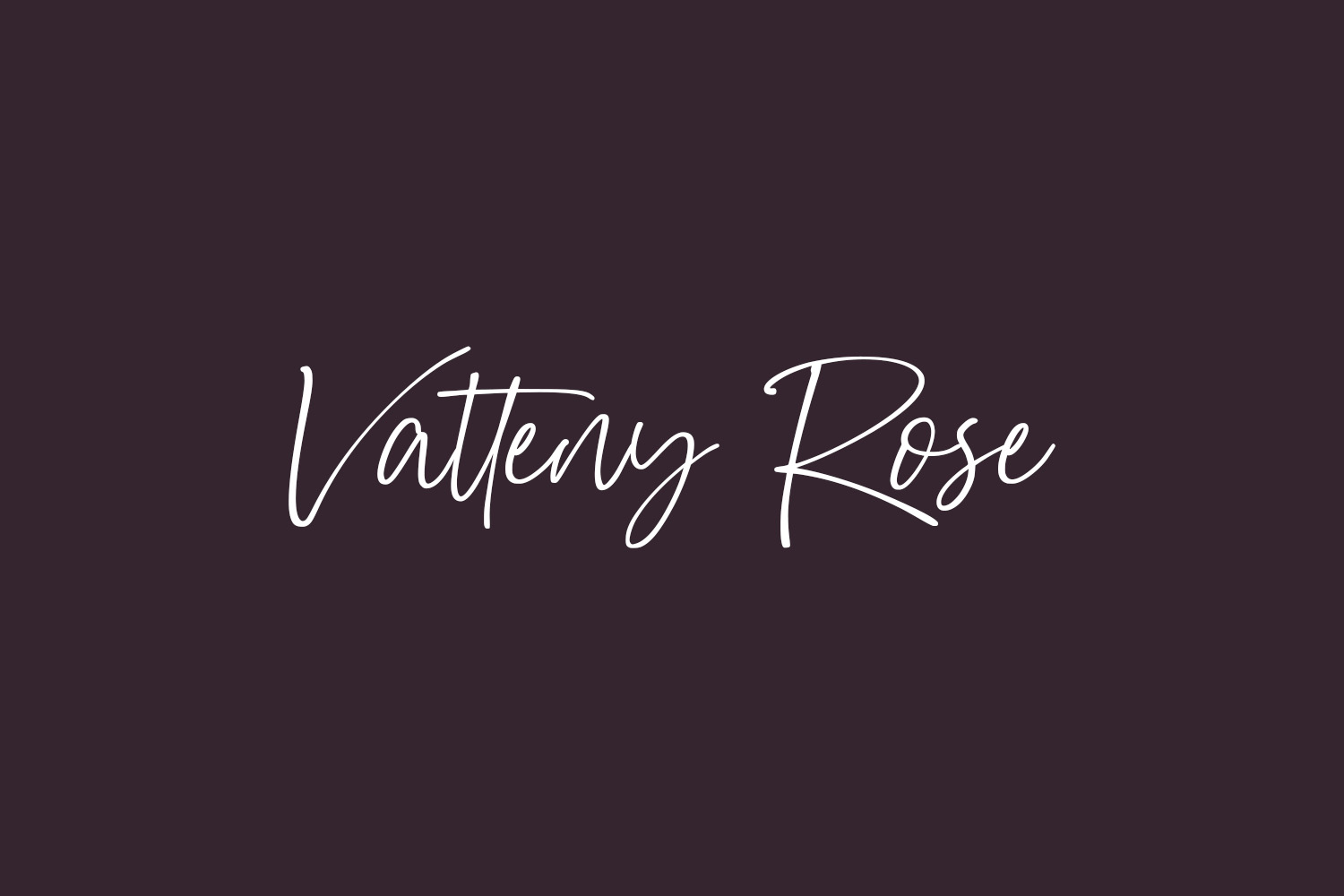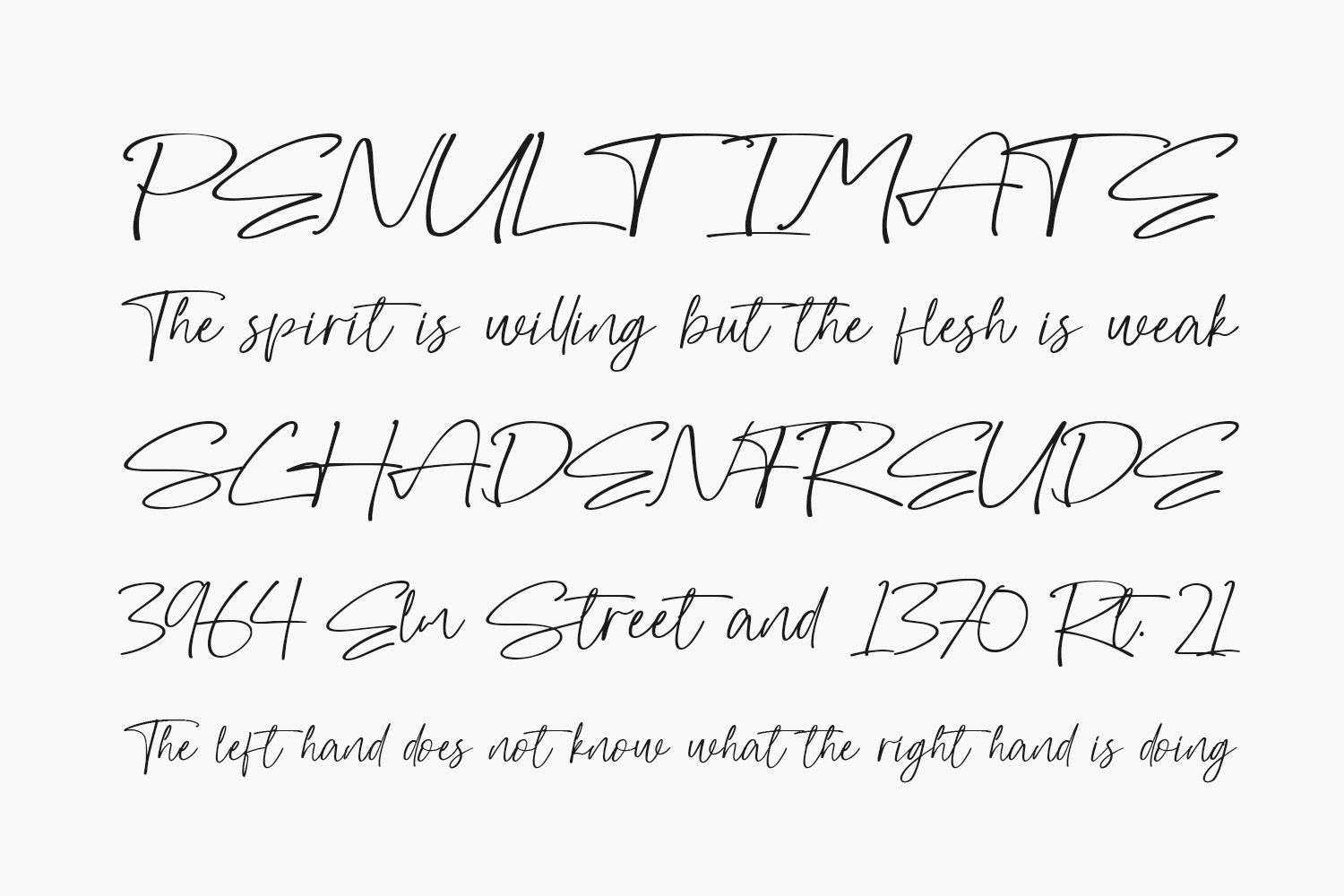
Vatteny Rose Free Font is a beautiful and refined script font. It has a classy, elegant, and modern look that can be used for logos, branding, invitations, stationery, wedding designs, social media posts, and much morewas designed by StringLabs and is free for personal use only. Please purchase the full version for commercial use.